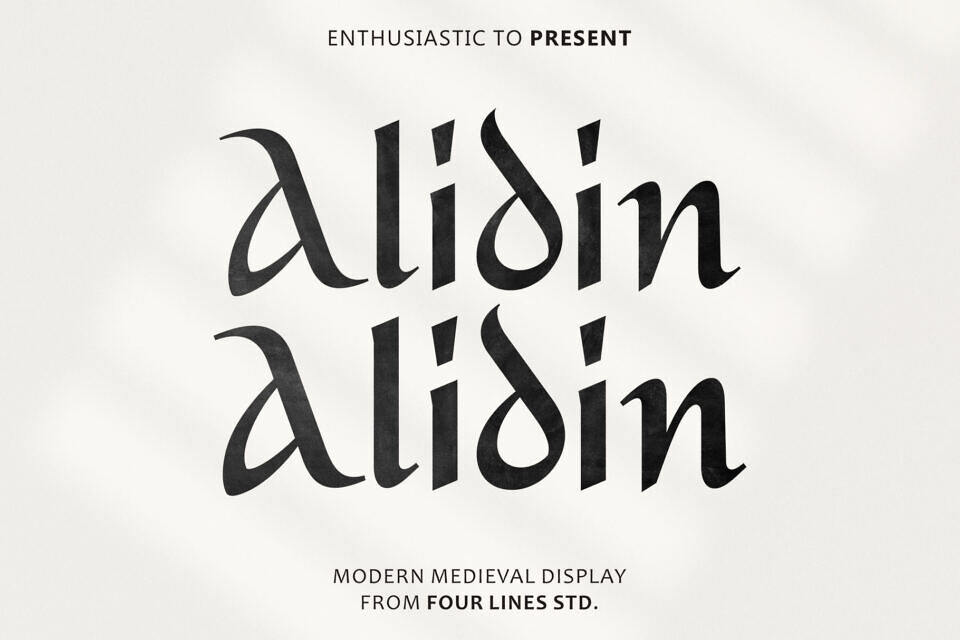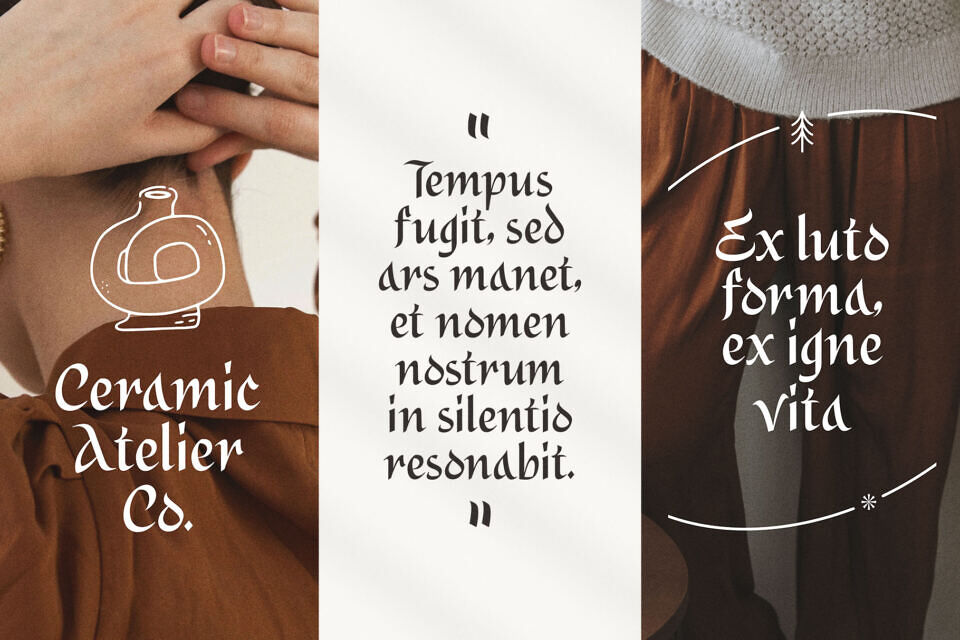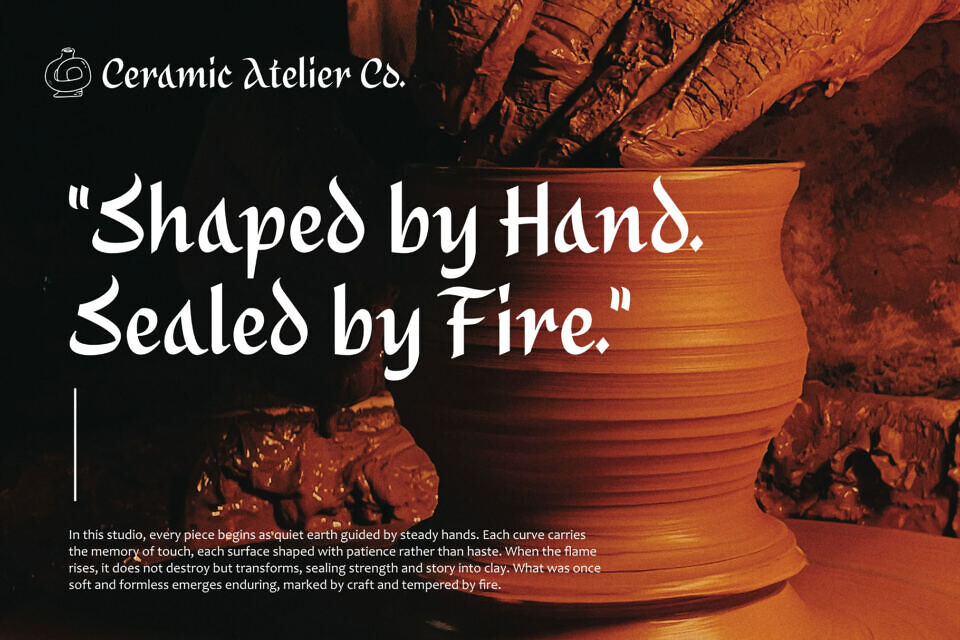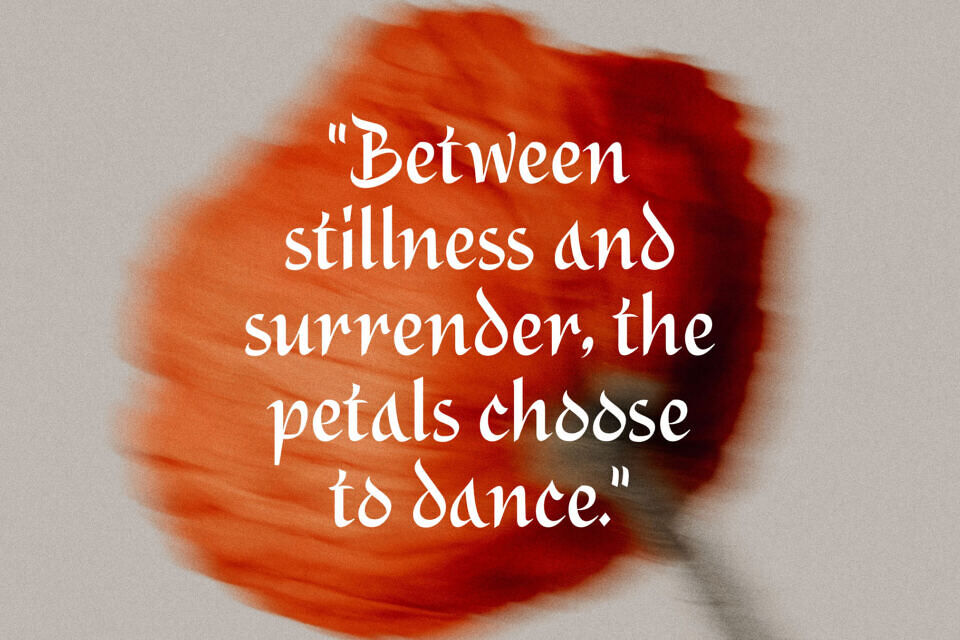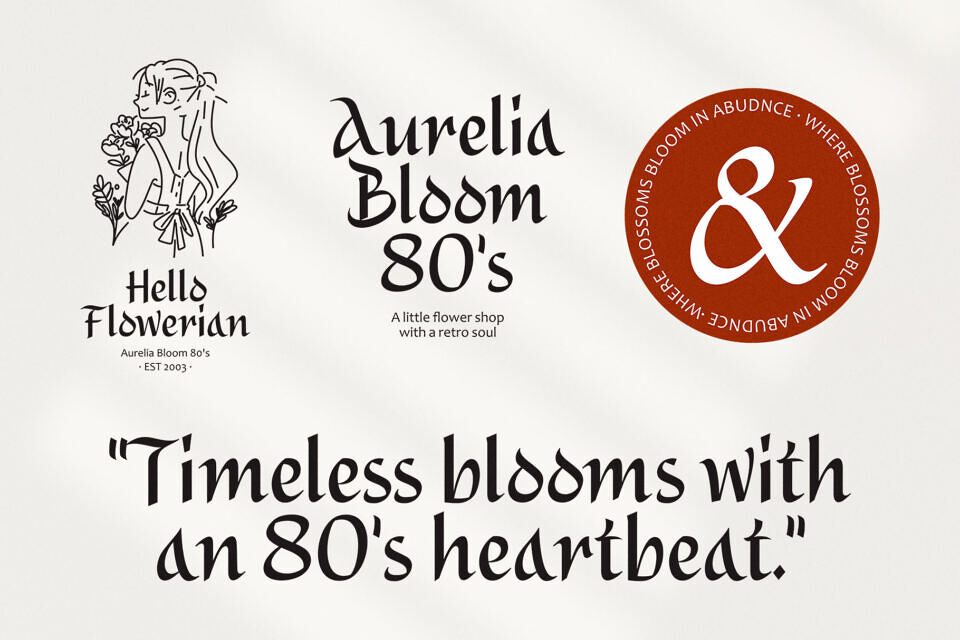
Alidin is a modern medieval display font featuring strong ornamental details and distinctive letterforms. Designed to bring a classic heritage feel with a refined contemporary touch, Alidin stands out with its bold presence and decorative character.
Perfect for logos, branding, packaging, posters, editorial layouts, merchandise, and heritage-inspired projects. Its expressive shapes make it ideal for headlines and large display settings where personality matters most. Alidin delivers a unique balance between historical influence and modern versatility, making it suitable for both classic and contemporary design concepts.